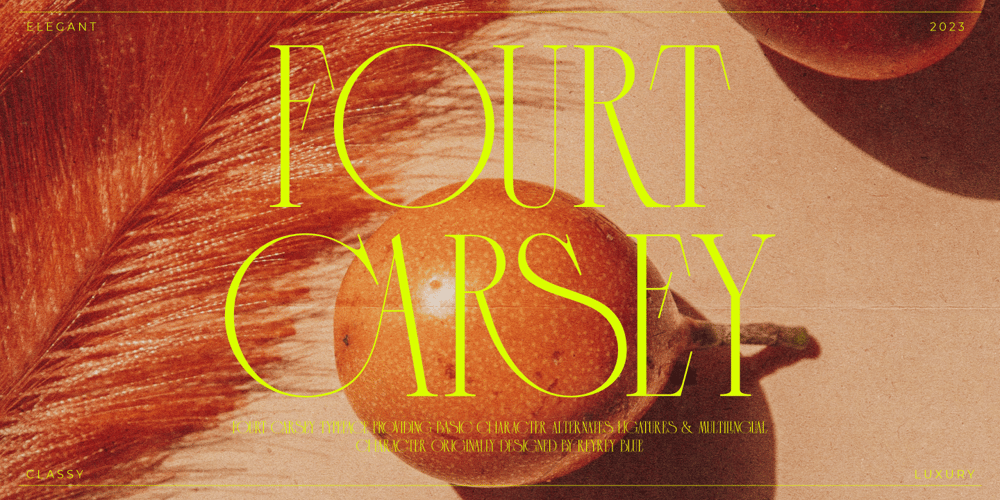
Fourt Carsey Font Family was designed by Risca Anitawati and published by Reyrey Blue Std. Fourt Carsey contains 1 styles and family package options. Introducing, Fourt Carsey Typeface. Fourt Carsey is an elegant and modern font that take classy and fashionable touch family typeface.Fourt Carsey Typeface is perfectly suitable for layout design for quotes or body copy, best used as a display for headings, logos, branding, magazines, product packaging, invitations. logotypes, and much more. Don’t wait to add this luxury font family to your collection and explore the uniqueness of this typeface!Features :· All Uppercase and Lowercase· Number & Symbol· Supported Languages· Alternates and Ligatures· PUA EncodedHope you enjoy with our font!